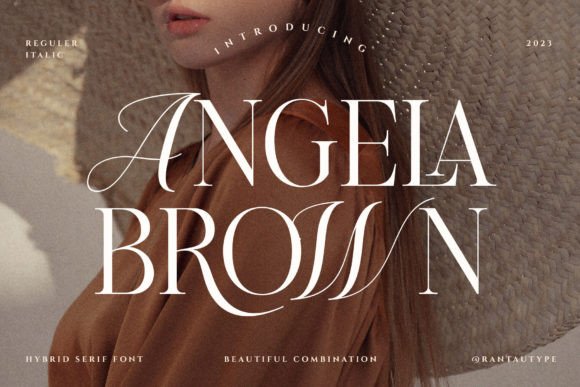
Introducing Angela Brown Font, the ultimate choice for those seeking elegance and sophistication in their design projects. Created by RantauType, this beautiful and inspiring mix of classic calligraphy and modern serif is guaranteed to captivate your audience.
Are you tired of ordinary fonts that fail to make a lasting impression? Look no further! Angela Brown Font is specifically designed to elevate your work to new heights. With its timeless appeal, this font is perfect for headlines, titles, and advertising campaigns. Imagine the impact it will have on your vintage mood boards, branding, logotypes, packaging, and editorial designs.
In the fast-paced world of design, it's crucial to stay ahead of the game. Angela Brown Font enables you to create modern logos that will stand out from the crowd. Your website will come to life with its sleek and stylish appearance, while social media quotes will exude an air of sophistication that will leave your followers in awe.
But that's not all. Angela Brown Font is also the secret ingredient to crafting unforgettable wedding branding. Picture elegant invitations, stylish place cards, and enchanting wedding signage. Your special day will be elevated to a whole new level of elegance and charm.
When it comes to versatility, Angela Brown Font knows no bounds. It effortlessly blends the best of both worlds - classic and modern - making it the perfect choice for any design project. Whether you're aiming for a contemporary or vintage look, this font has got you covered.
Don't settle for mediocrity when you can achieve greatness. Angela Brown Font is the game-changer you've been searching for. Its timeless beauty and sophistication will leave a lasting impression on your clients, customers, and audience.